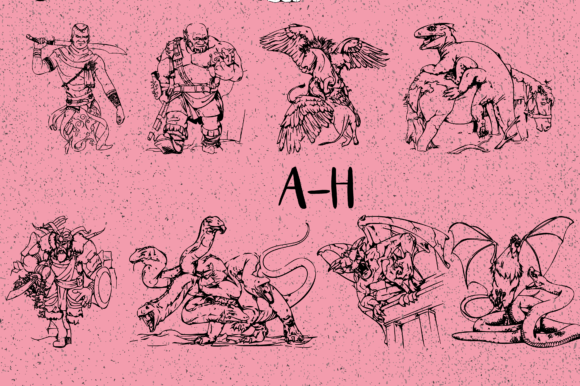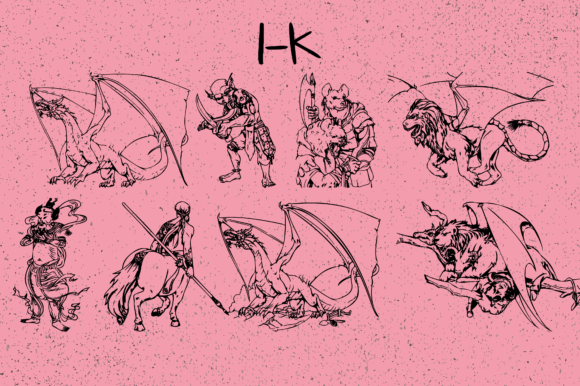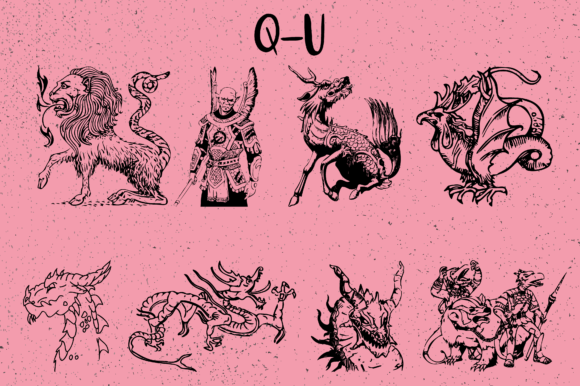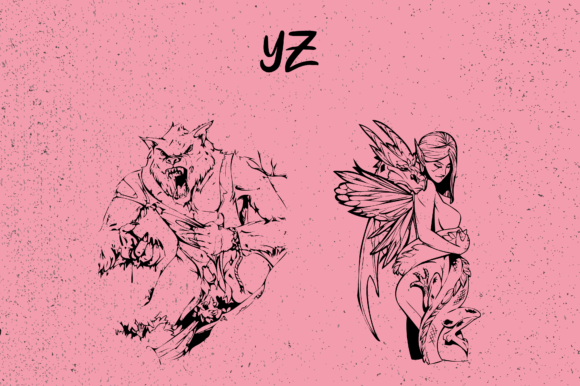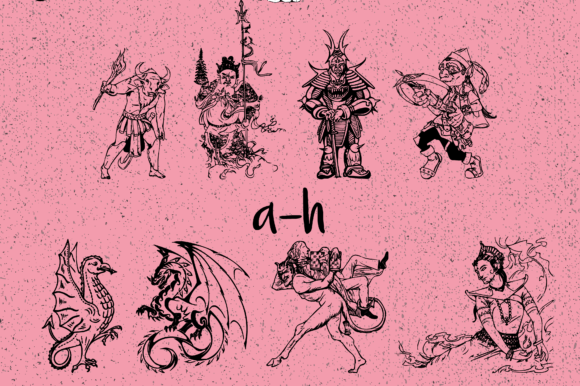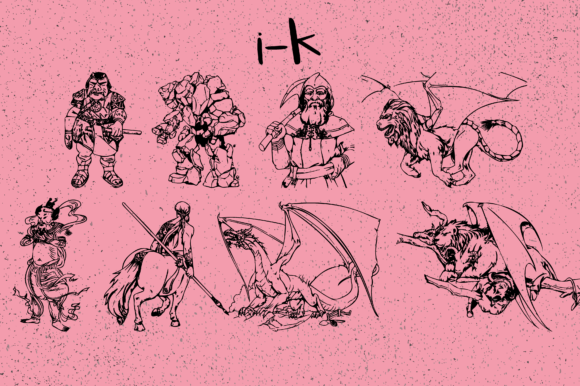
Introduction to Legendary Characters Font
Legendary characters is a dingbats typeface designed to help you generate up to 62 unique mythological characters by typing capital and small letters.